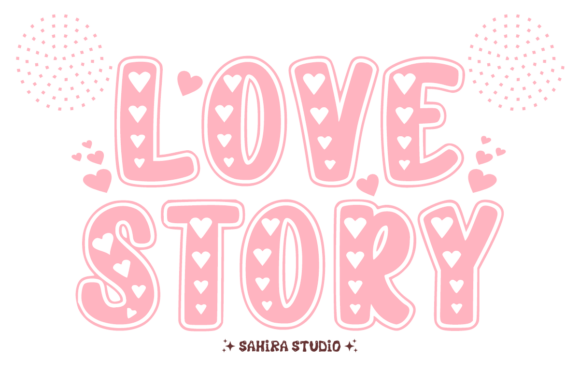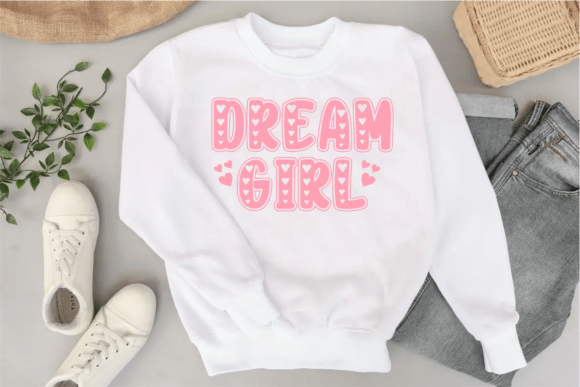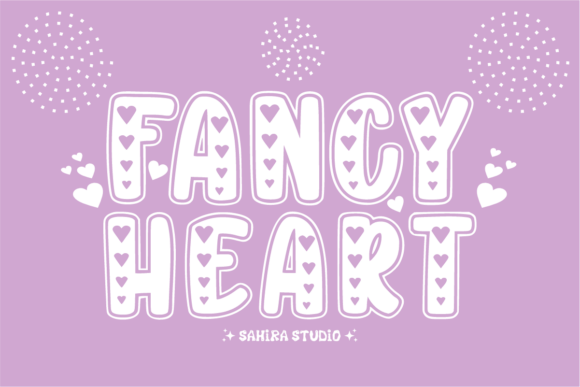
Cute Heart Font: The Ultimate Decorative Typeface for Romantic and Playful Designs
Are you looking for a font that exudes love, sweetness, and playfulness? Look no further than the Cute Heart font, a modern decorative cartoon font that is sure to capture the hearts of designers and crafters alike. This charming typeface consists exclusively of uppercase letters, each one meticulously crafted to be cute, romantic, and sweet, making it instantly recognizable.
A Font that’s Perfect for Any Romantic Occasion
Whether you’re working on a Valentine’s Day project, a baby shower invitation, or a kids’ design, the Cute Heart font is the perfect addition to your font library. Its chunky letters, filled with adorable heart cutouts, give it a playful and charming feel that’s ideal for creating eye-catching designs. The hand-drawn style and bubbly feel of this font give it a warm, affectionate vibe that resonates with all things sweet and tender.
The Cute Heart font is incredibly versatile, making it perfect for a wide range of design applications. Here are just a few ideas to get you started:
- Valentine’s Day projects: Create romantic and playful designs for Valentine’s Day cards, invitations, and social media posts.
- Baby shower invites: Add a touch of sweetness and innocence to your baby shower designs with this adorable font.
- Kids’ designs: Use the Cute Heart font to create fun and playful designs for kids’ craft projects, coloring books, and children’s essentials.
- Greeting cards: Add a personal touch to your greeting cards with this charming font, perfect for special occasions like birthdays, anniversaries, and holidays.
- Social media posts: Use the Cute Heart font to create eye-catching social media posts that are sure to grab attention and spread love and positivity.
Crafting and Scrapbooking
Crafters and scrapbookers will love the Cute Heart font for its ability to add a personal touch to their projects. Use it to create:
- Handmade cards and gift tags
- Personalized scrapbook pages
- Customized journal entries
- Decorative borders and frames
Girly Branding and Merchandise
The Cute Heart font is also perfect for girly branding and merchandise, adding a touch of femininity and playfulness to any design. Use it to create:
- Customized t-shirts and hoodies
- Personalized mugs and tote bags
- Adorable stickers and decals
- Charming animations and comic titles
Why Choose the Cute Heart Font?
So why choose the Cute Heart font for your design projects? Here are just a few reasons:
- Unique and eye-catching: This font is sure to grab attention and make your designs stand out.
- Playful and charming: The Cute Heart font adds a touch of playfulness and charm to any design.
- Versatile: Use it for a wide range of design applications, from romantic occasions to kids’ designs.
- Easy to use: This font is easy to read and works well in both digital and print formats.
In conclusion, the Cute Heart font is a must-have for designers and crafters looking to add a touch of love, sweetness, and playfulness to their designs. With its chunky letters, adorable heart cutouts, and hand-drawn style, this font is perfect for a wide range of design applications, from romantic occasions to kids’ designs. So why wait? Add the Cute Heart font to your font library today and let your imagination run wild!